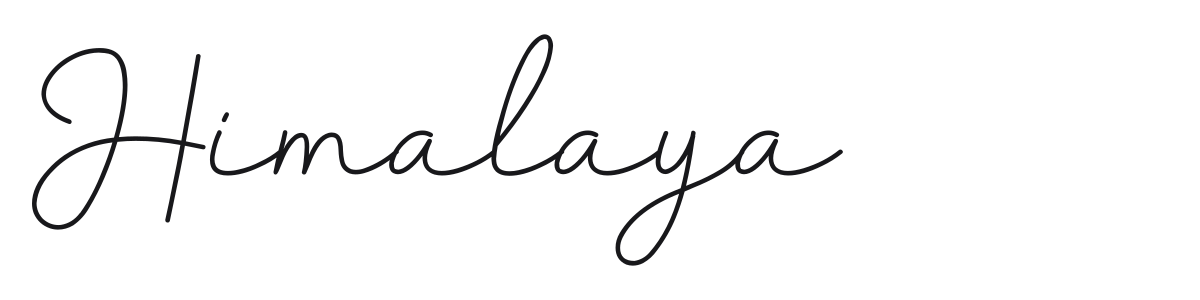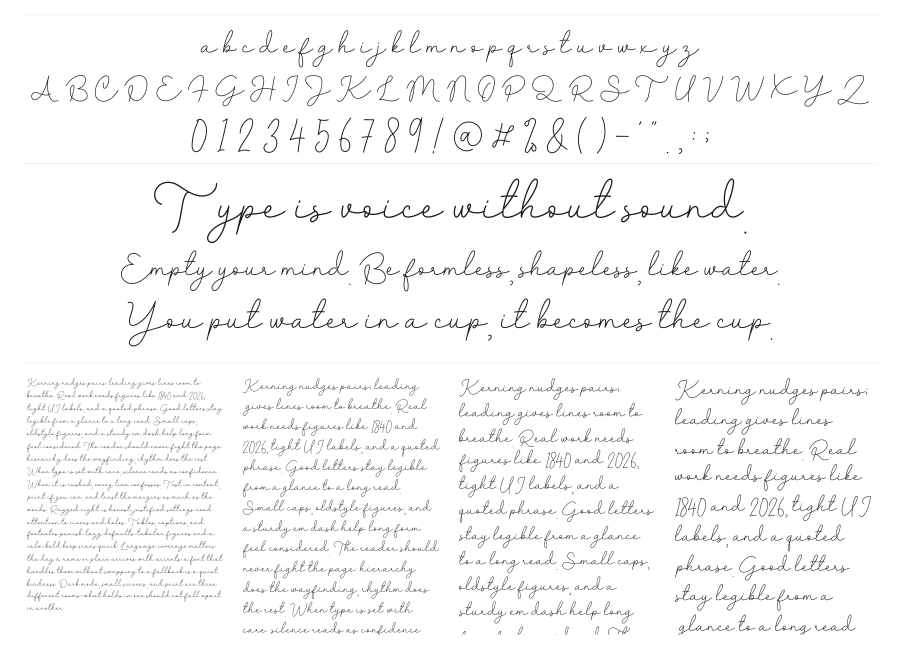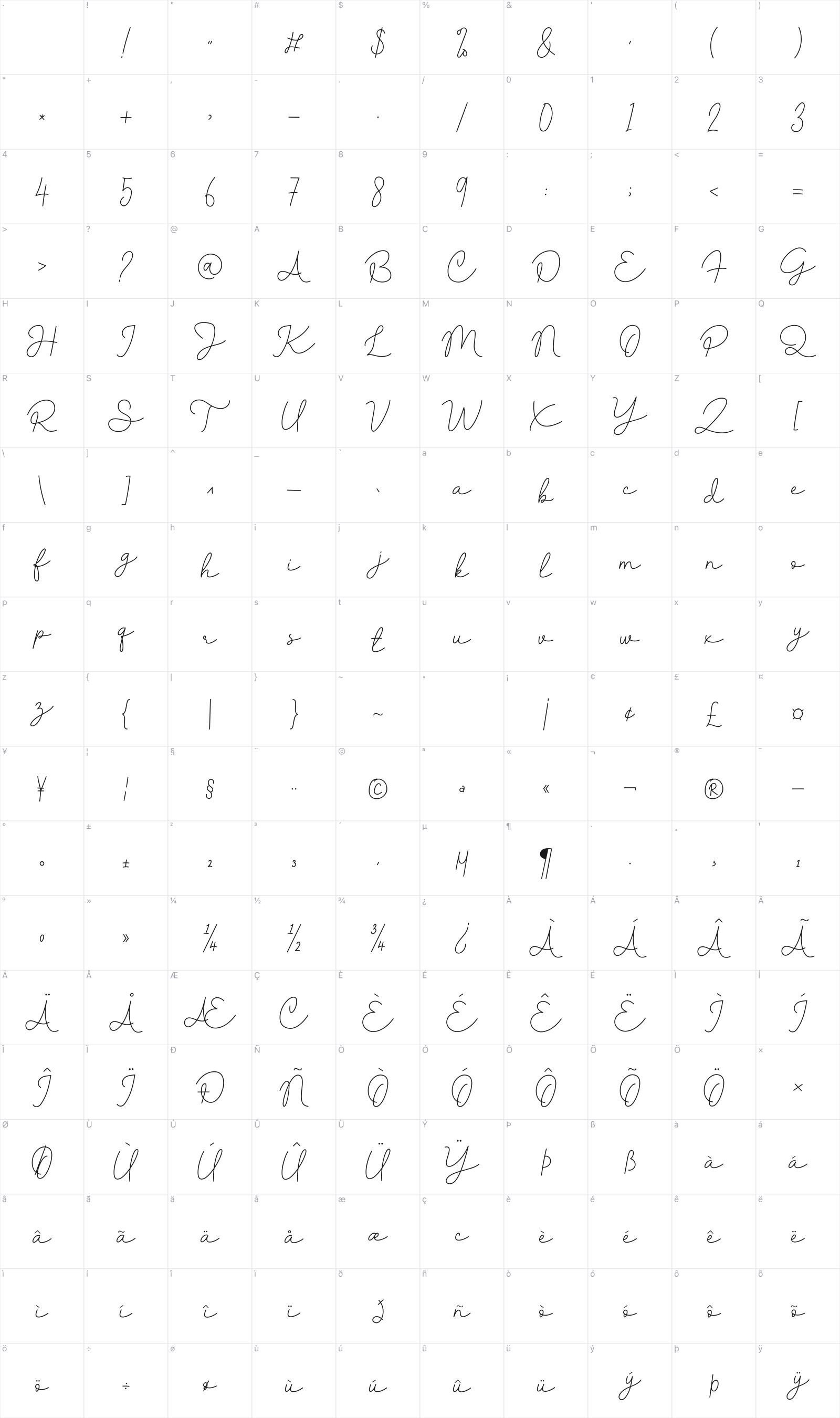
Himalaya
Himalaya is a thin, flowing modern calligraphy script with long looping connections that give it an effortless, continuous feel. The near-monoweight strokes and generous swashes keep it light and airy, well-suited to contexts where elegance meets informality. It carries the relaxed hand of contemporary brush lettering without the heaviness.